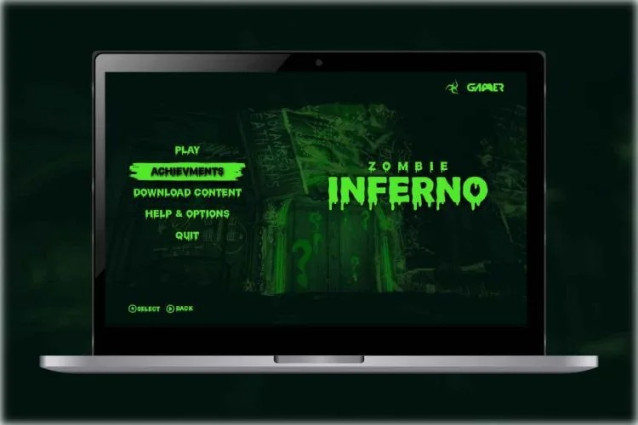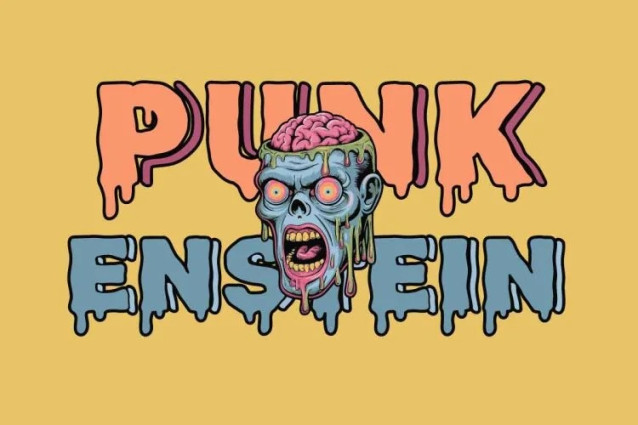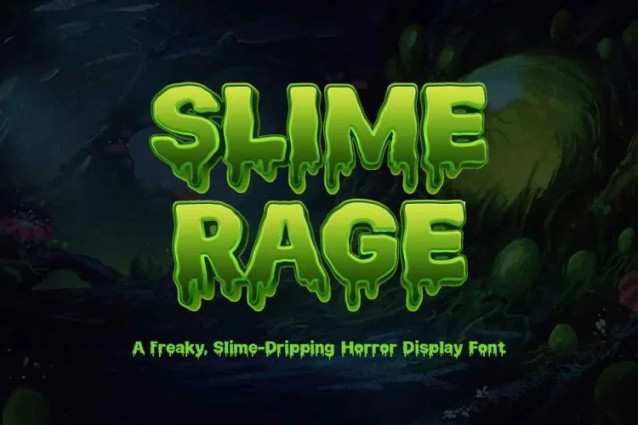
Slime Rage Font
Slime Rage Font is a bold and freaky display font dripping with spooky energy. Inspired by slimy textures and horror movie vibes, it combines organic, uneven letterforms with a gooey, melting effect. Each glyph looks like it’s oozing off the screen, making it perfect for Halloween branding, creepy games, haunted house flyers, and spooky merch.
Its handcrafted, irregular structure gives it a raw, freakish personality—ideal for designs that want to grab attention with weird, eerie, and over-the-top visuals.